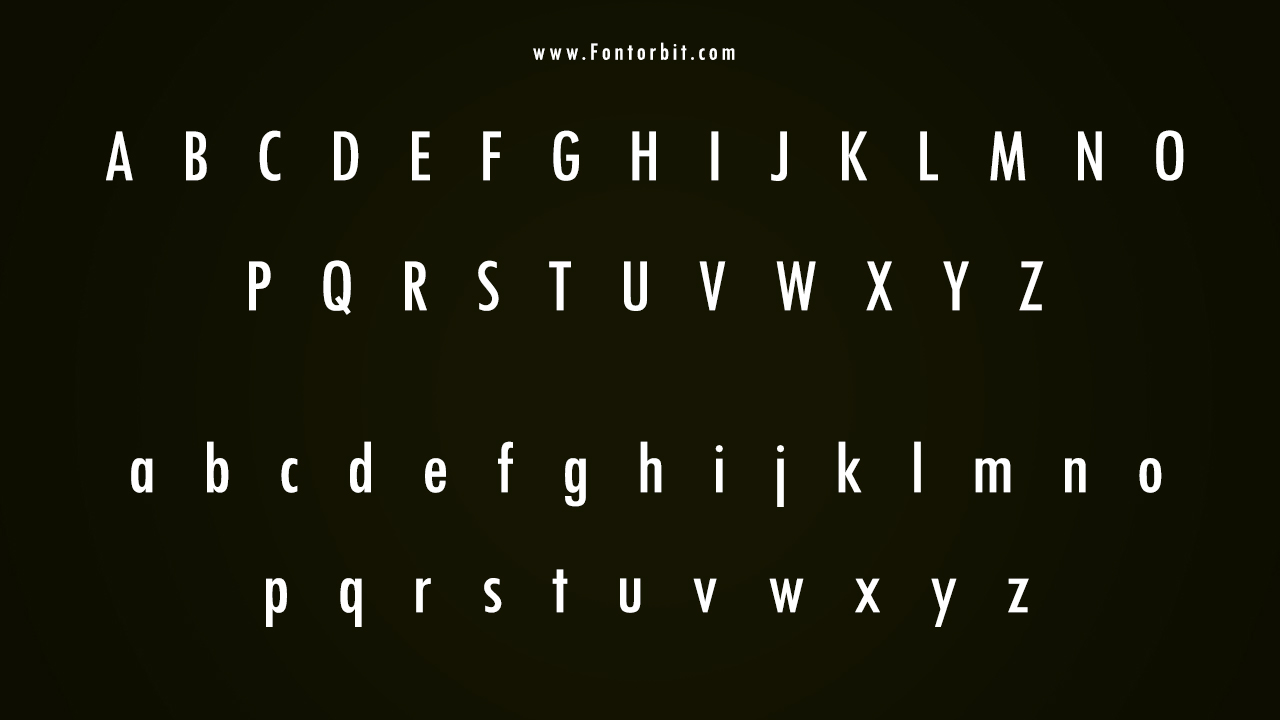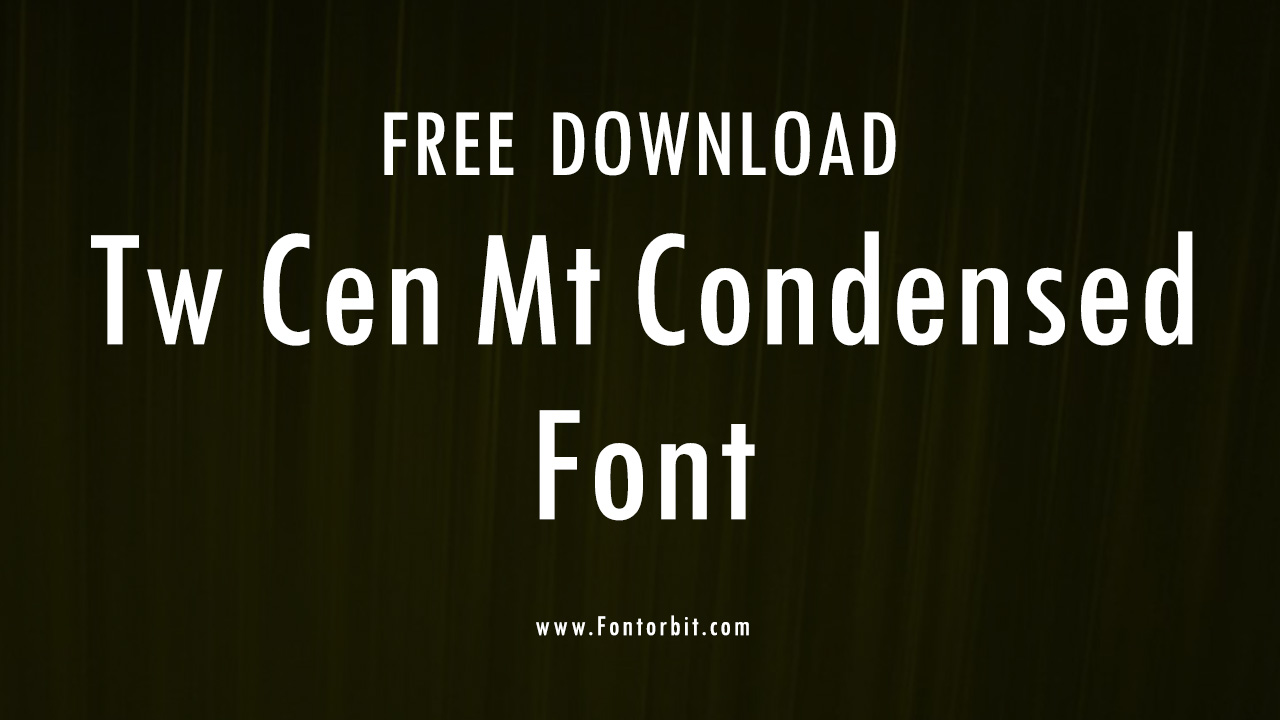
Tw Cen MT (Twentieth Century Modern) is a geometric sans-serif typeface designed by Sol Hess and released by Monotype in 1937.
Inspired by the Bauhaus movement, it is characterized by its clean, modern lines and uniform proportions. The Condensed Bold version is a more compact and robust style, making it ideal for impactful headlines. Its family includes several weights and styles.
Tw Cen MT Family Includes
The Tw Cen MT family provides flexibility with multiple font weights and styles, including:
- Tw Cen MT Std Semi Medium
- Tw Cen MT Std Regular
- Tw Cen MT Std Light
- Tw Cen MT Std Light Italic
- Tw Cen MT Std Medium Cond
- Tw Cen MT Std Italic
- Tw Cen MT Std SemiBold
- Tw Cen MT Std Bold Cond
- Tw Cen MT Std Bold
- Tw Cen MT Std Bold Italic
- Tw Cen MT Std Extra Bold
- Tw Cen MT Std Extra Bold Cond
- Tw Cen MT Std Extra Bold It
- Tw Cen MT Std Ultra Bold Cond
- Tw Cen MT Std Ultra Bold
- Tw Cen MT Std Ultra Bold It
Notable Uses Of Tw Cen MT
Tw Cen MT Condensed Bold is widely used in various design applications due to its clean and versatile appearance. It is best used in situations where a modern, sleek, and bold appearance is needed. Its legibility in small sizes and high-impact visual weight in larger formats make it perfect for:
- Event Promotions
- Book and Magazine Titles
- Corporate Presentations
- Digital Media
Tw Cen Mt Condensed Font Character Map:
Tw Cen MT Condensed Bold is a timeless geometric sans-serif font that offers versatility in various design contexts. Its balance between modernity and readability ensures it remains a popular choice for designers. Whether for digital or print, its bold and condensed form makes it stand out without overwhelming the overall design.
2.What Are Similar Alternatives To Tw Cen MT?
Futura, Avenir Next, and Century Gothic.
3.Is Tw Cen MT Suitable For Body Text?
While it’s best for headlines, its regular styles can be used for body text.
4.What Inspired The Design Of Tw Cen MT?
The Bauhaus design philosophy of simplicity and functionality.
5.How Many Weights Does Tw Cen MT Have?
It includes styles like Regular, Bold, Condensed, and Italic.